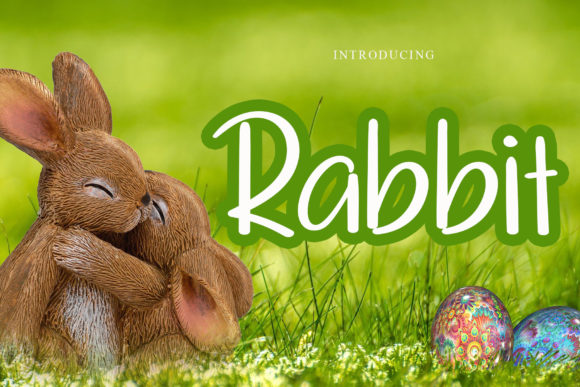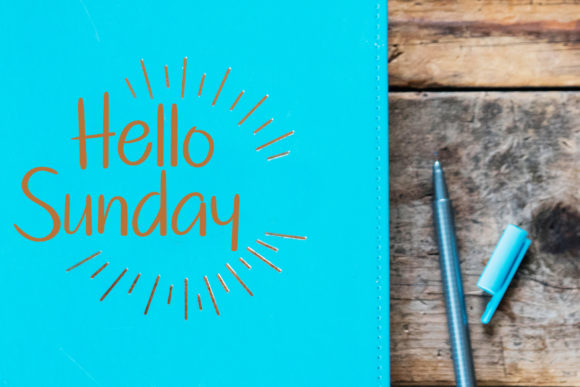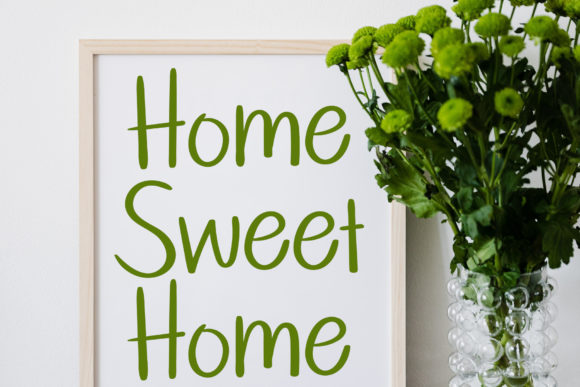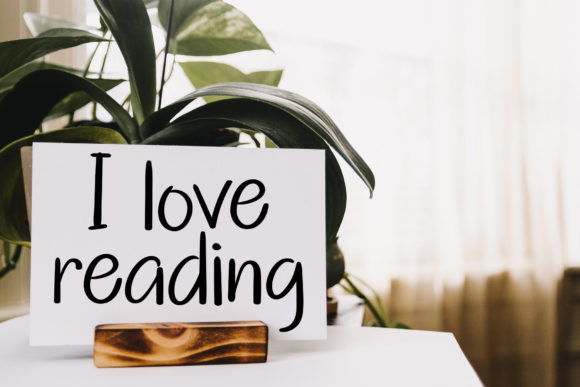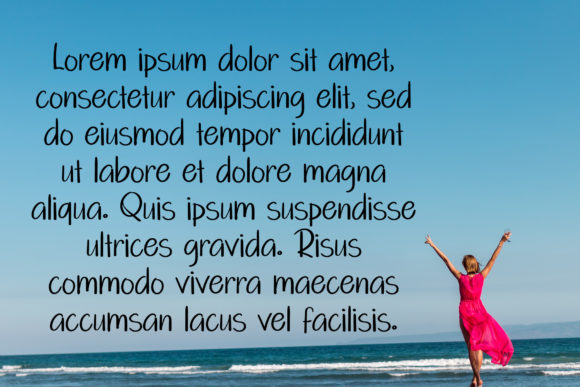
Rabbit Font
About Rabbit Font
Rabbit is a sweet and friendly handwritten font. Its natural and unique style makes it incredibly fitting to a large pool of designs. The only limit is your imagination!